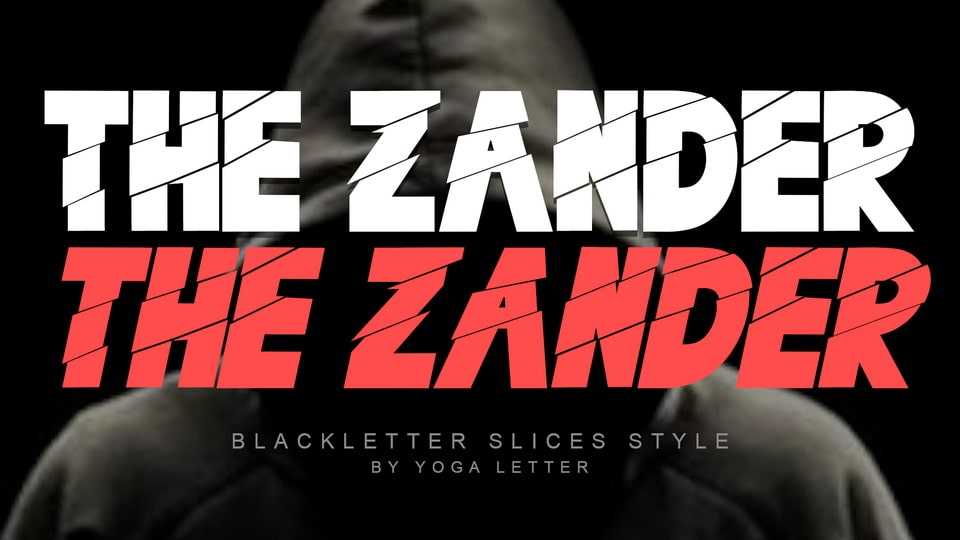
Download The Zander font, a display typeface with cuts on each letter. Very suitable for business branding, posters, stickers, branding, banners, logos, and others.